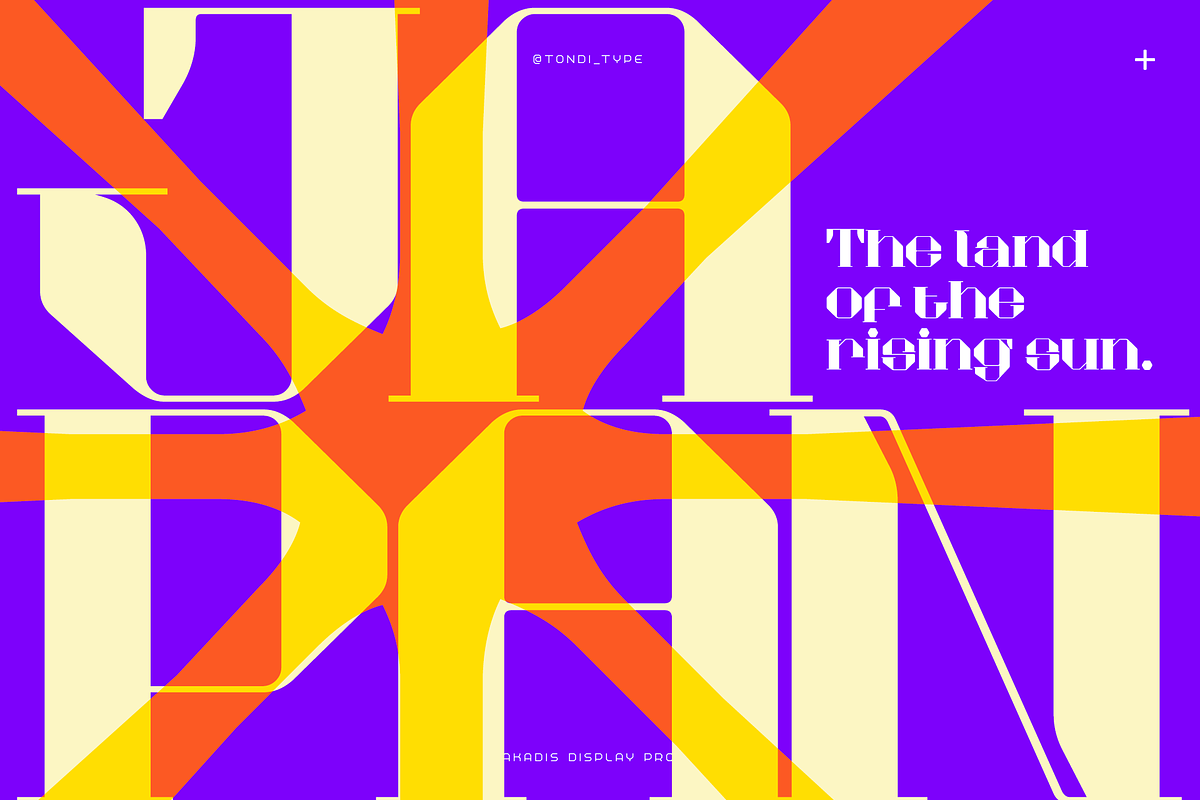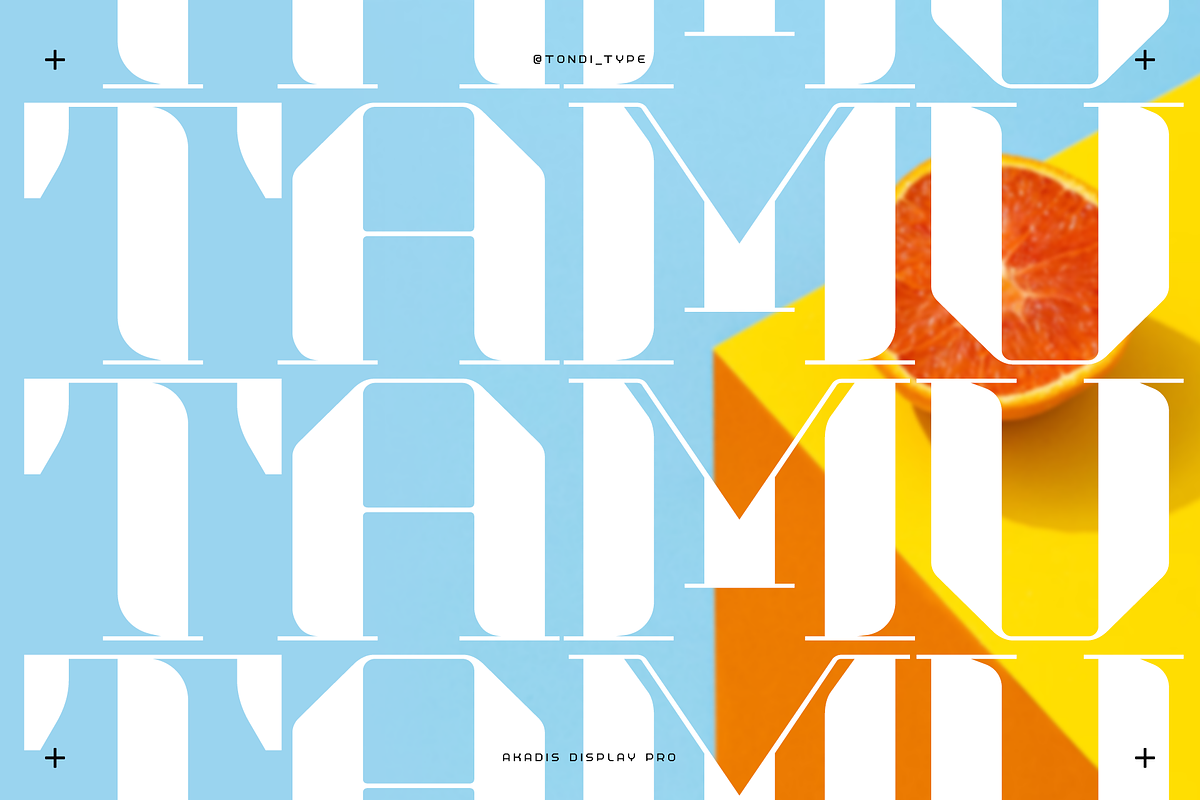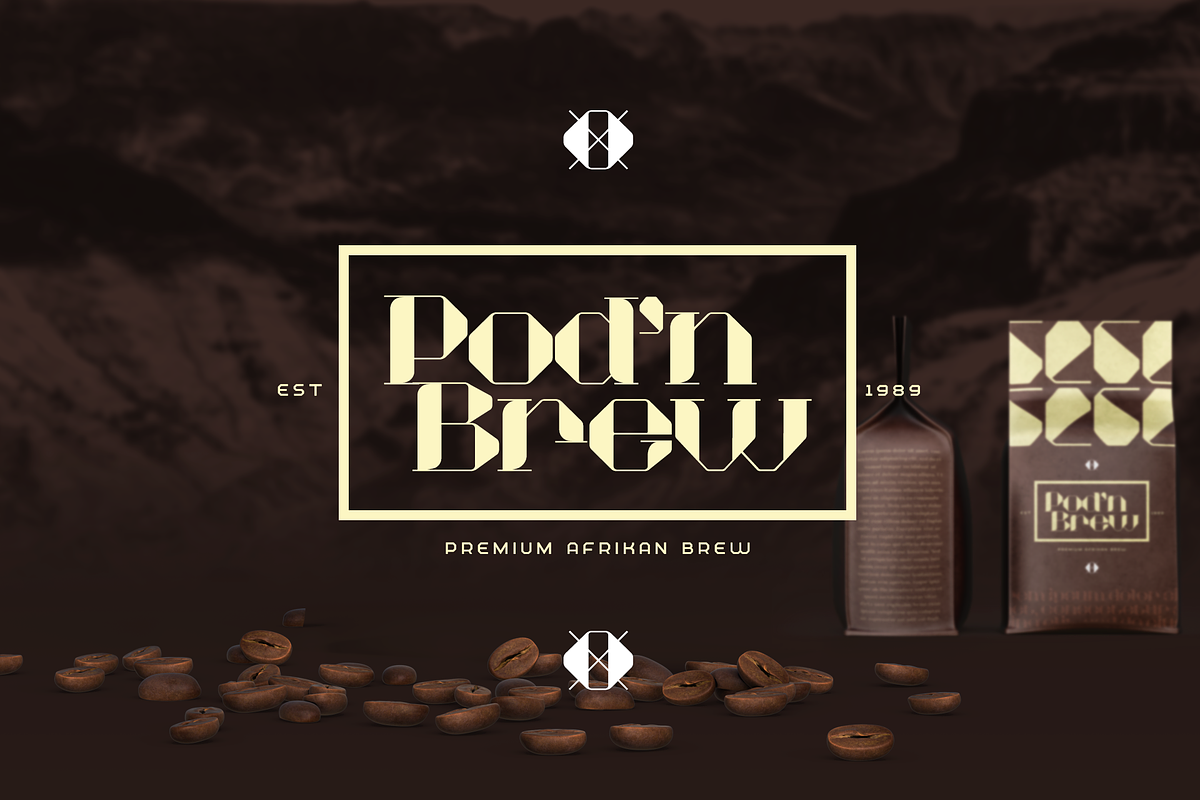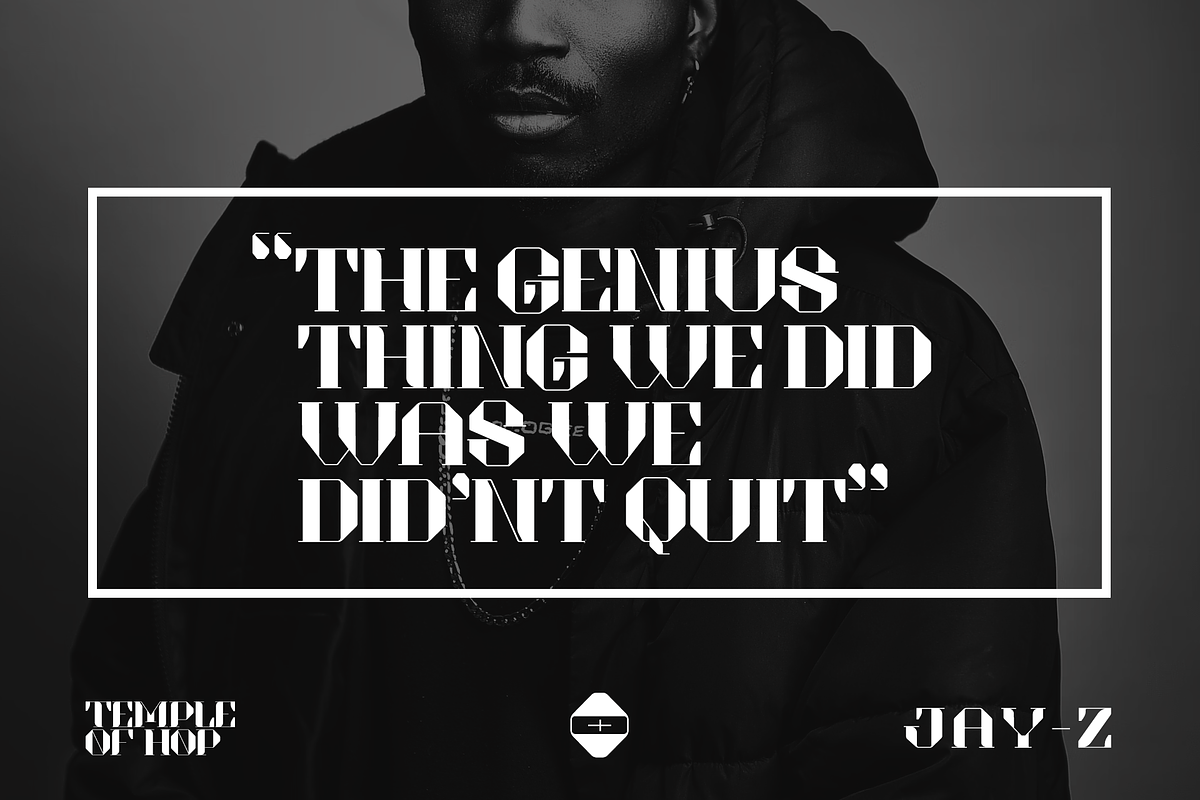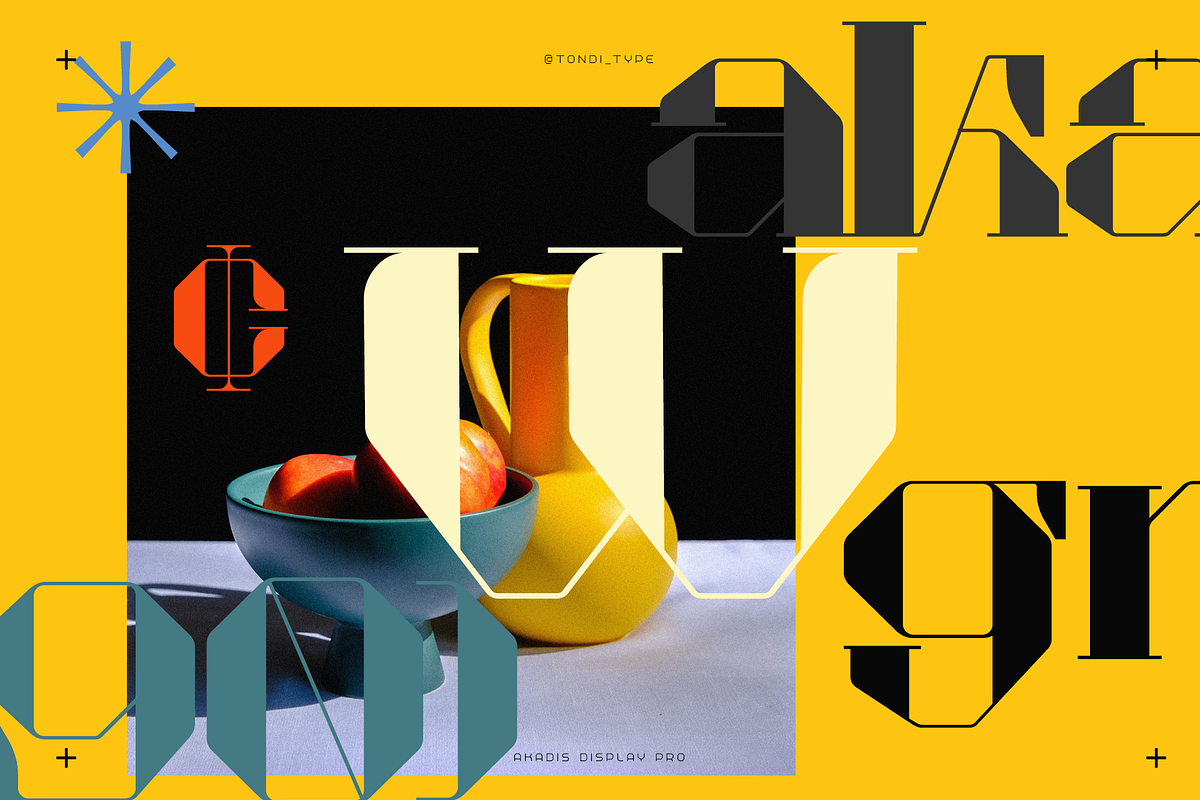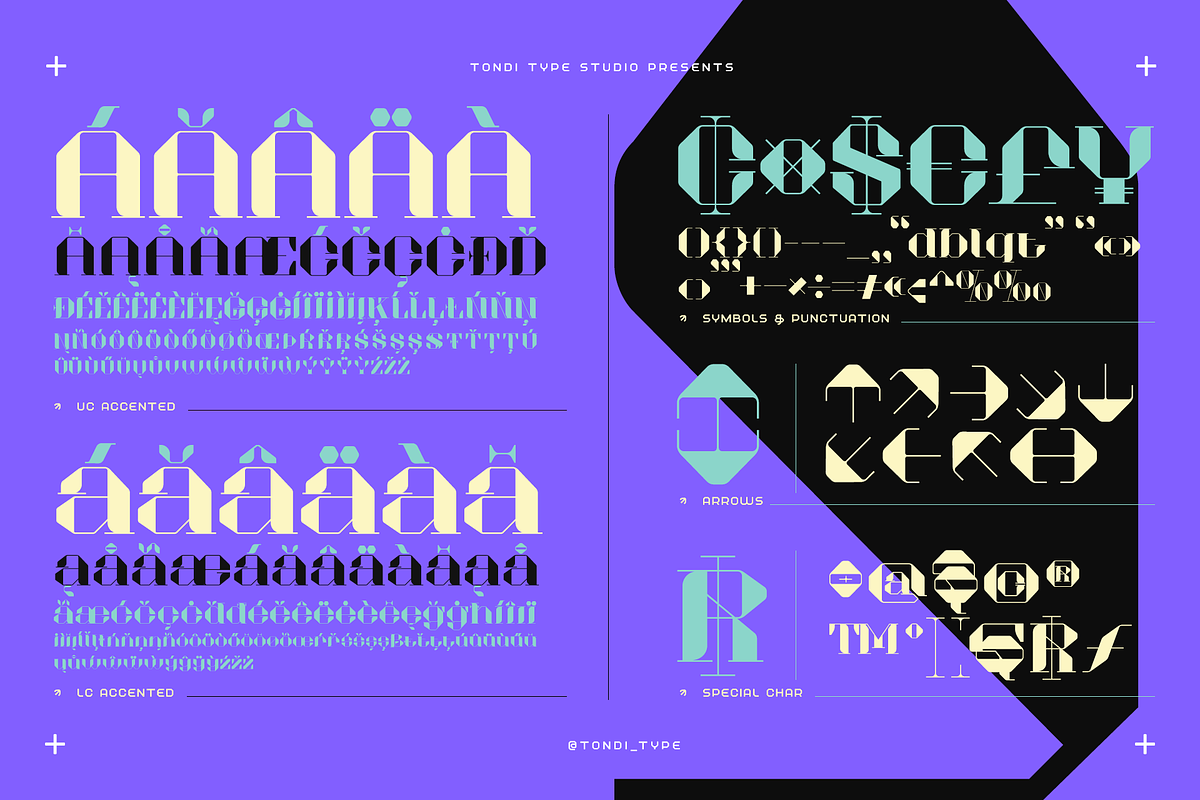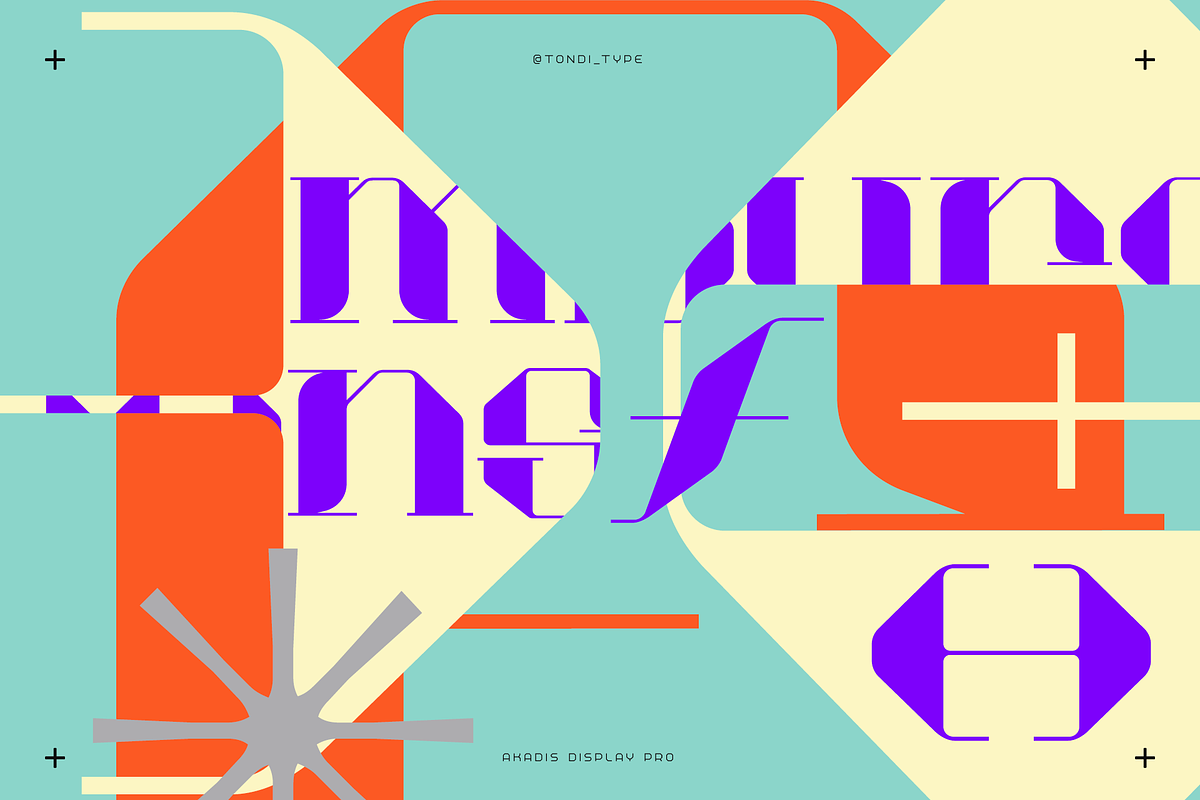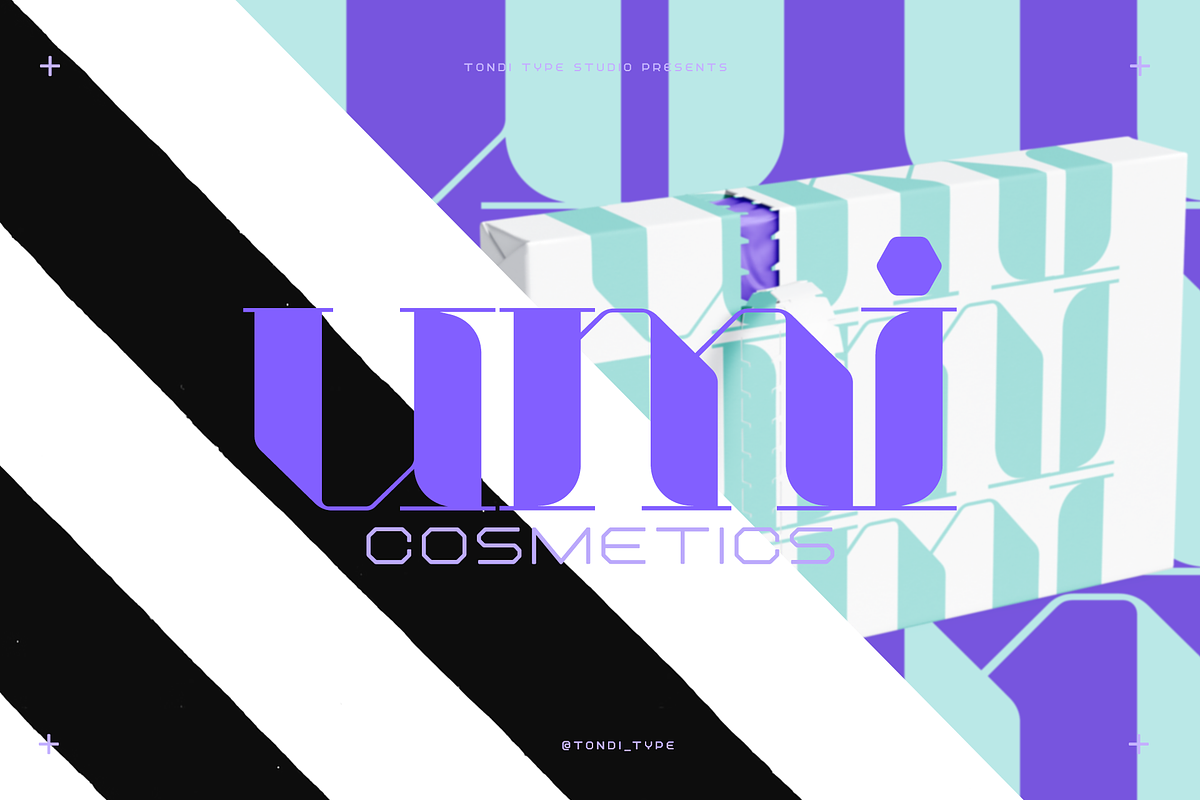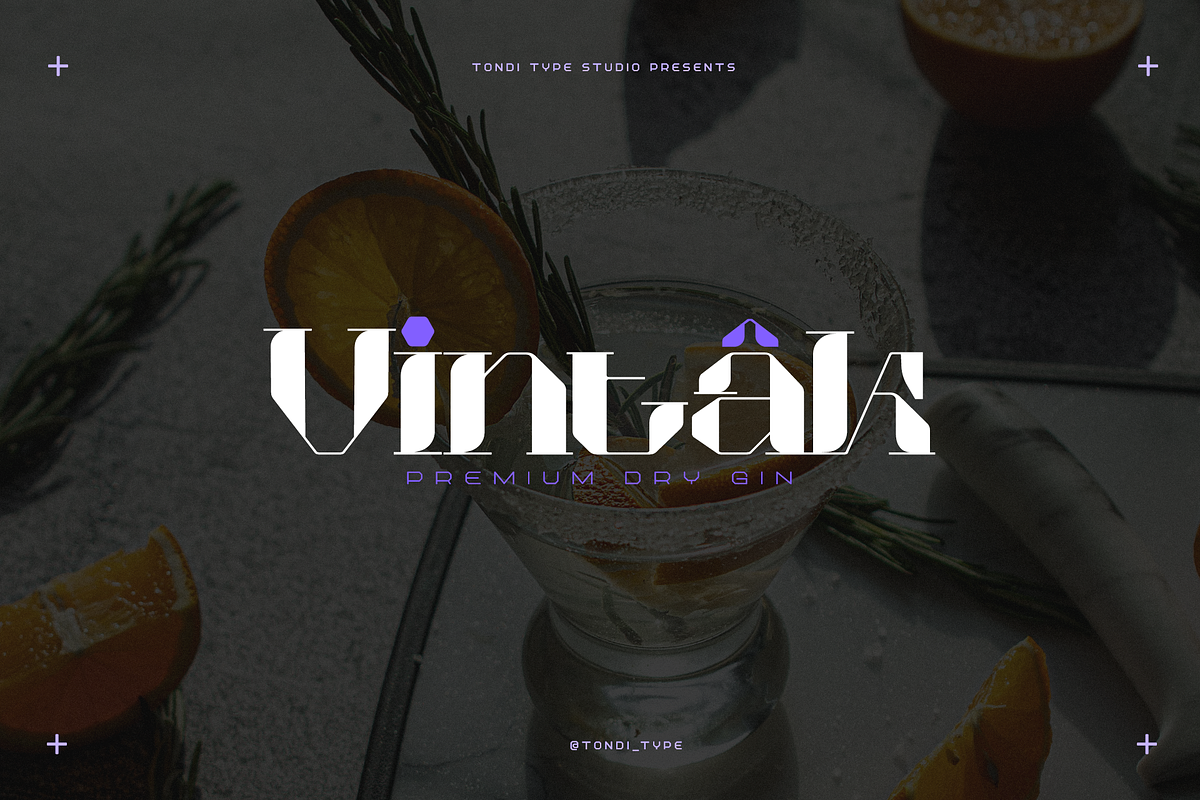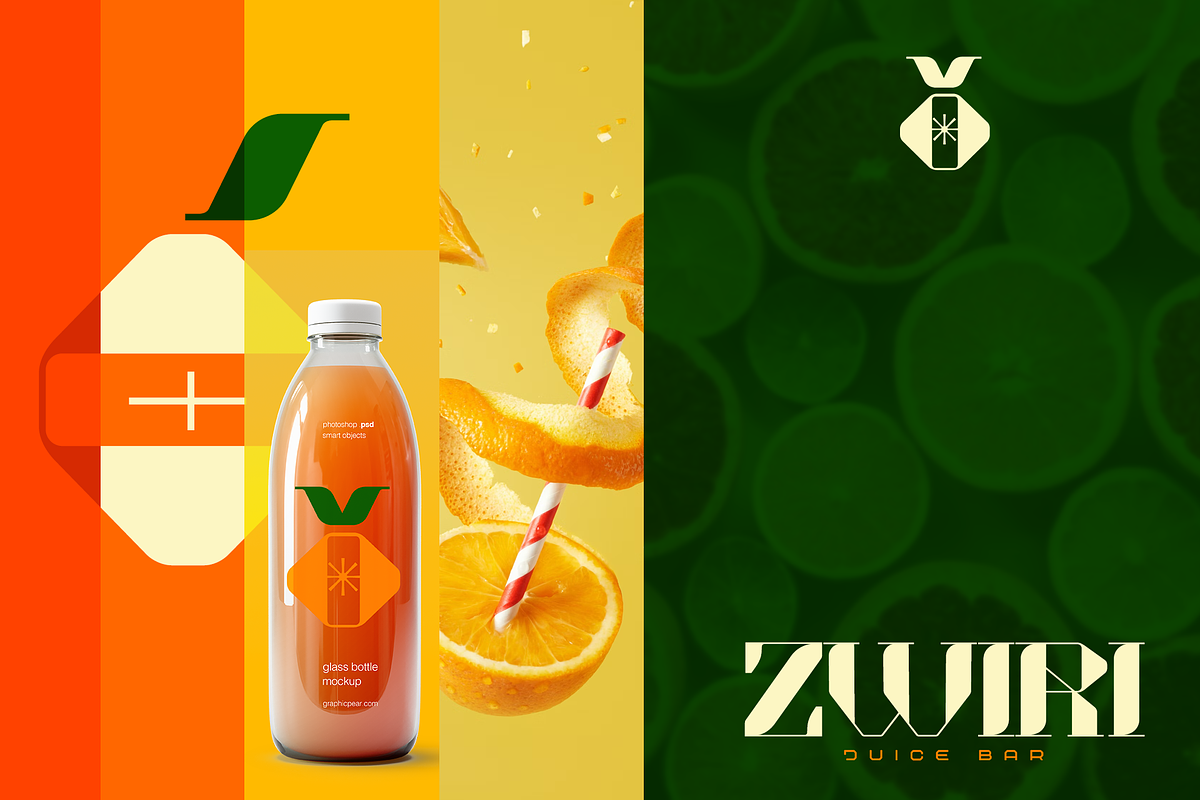
Akadis Neue - Contemporary Serif
Introducing Akadis Neue: A Fusion of Contemporary Serif and Industrial Sans Serif
Akadis Neue is not your average typeface - it's a masterpiece that seamlessly blends the classic elegance of a serif with the bold industrial appeal of a sans serif. With high contrasting stems, this contemporary font exudes sophistication and modernity, making it an exceptional choice for designers seeking a unique and refined look.
Building upon the success of its predecessor, Akadis Neue is an update that takes typography to new heights. Refined letterforms breathe fresh life into this font, ensuring each character is a work of art. Plus, with extended language support for over 88 languages, you can communicate effortlessly with a global audience.
2 Font styles:
- Akadis Neue Regular
- Akadis Neue Bespoke
Versatile OpenType Features: Akadis Neue is packed with features, including:
- ligatures,
- standard numerals,
- fractions,
- numerators & denominators
- old-style figures, and
- special characters.
- 14 OpenType features
These features give you the freedom to create captivating designs with seamless integration of various elements.
Perfect for Headlines and Classic Contemporary Designs: Whether you're working on headlines, branding, or any design project that demands a blend of classical and contemporary aesthetics, Akadis Neue rises to the occasion. Its eye-catching presence will leave a lasting impression on your audience, making it the perfect companion for design projects that require both elegance and innovation.
Your designs will radiate sophistication and charm. Experience the fusion of classic and modern like never before, and watch your projects come to life with this exceptional typeface.
Akadis Neue. Embrace the beauty of contemporary serifs and industrial sans serifs in one versatile font. Explore Akadis Neue now and let your creativity flow!